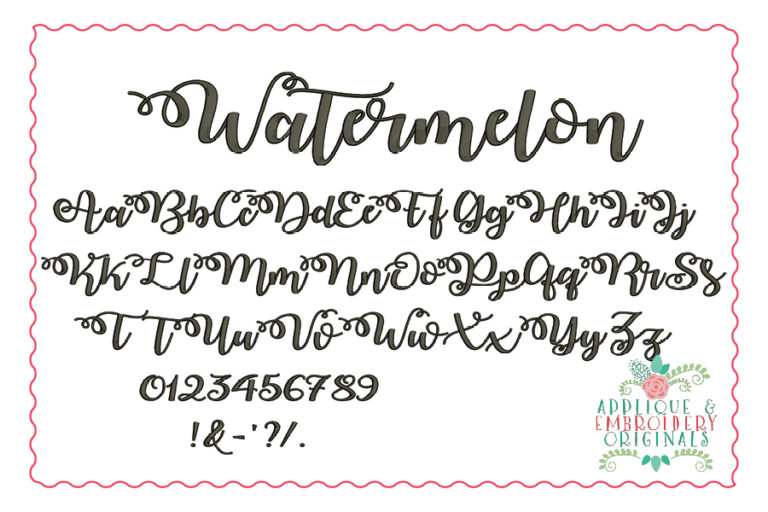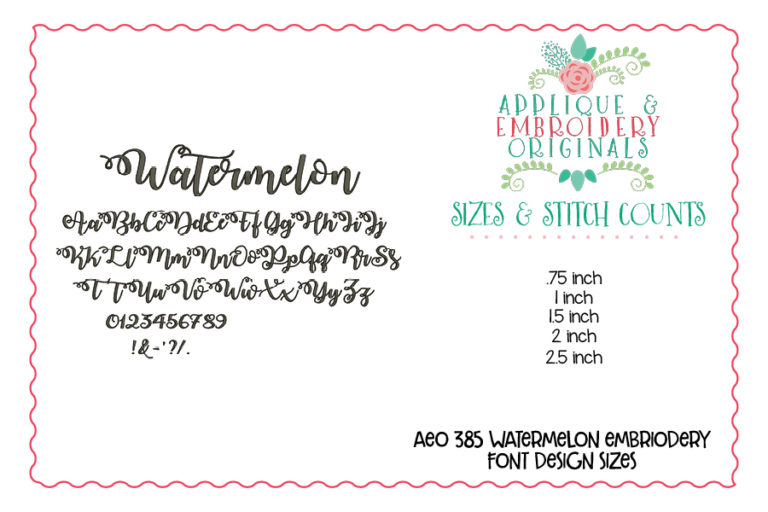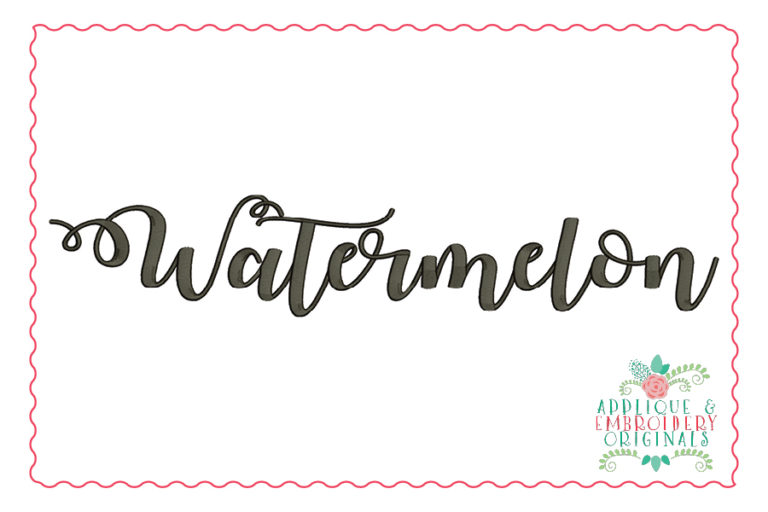
Watermelon Script Embroidery Font for embroidery machine. Perfect for your shirt, bag, towel or other item!
Designs comes in sizes .75″, 1″, 1.5″, 2″, 2.5″. All letters include A-Z, a-z and special characters. All letters are satin stitch.